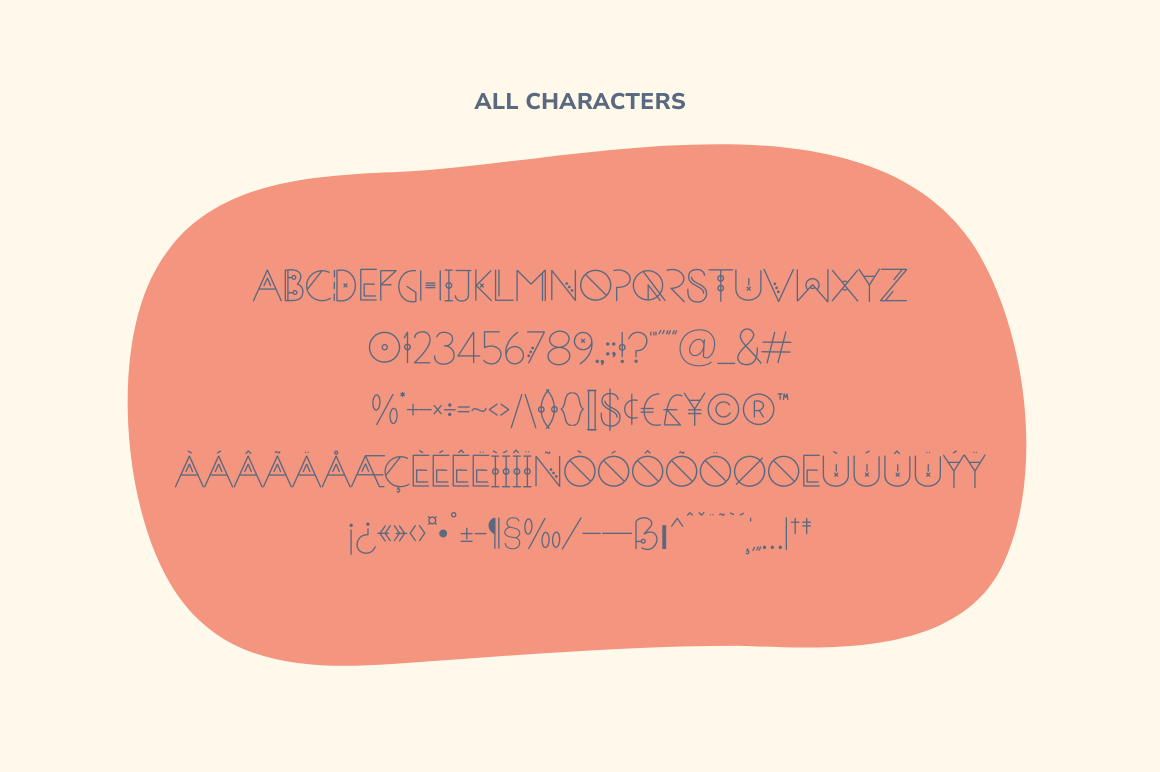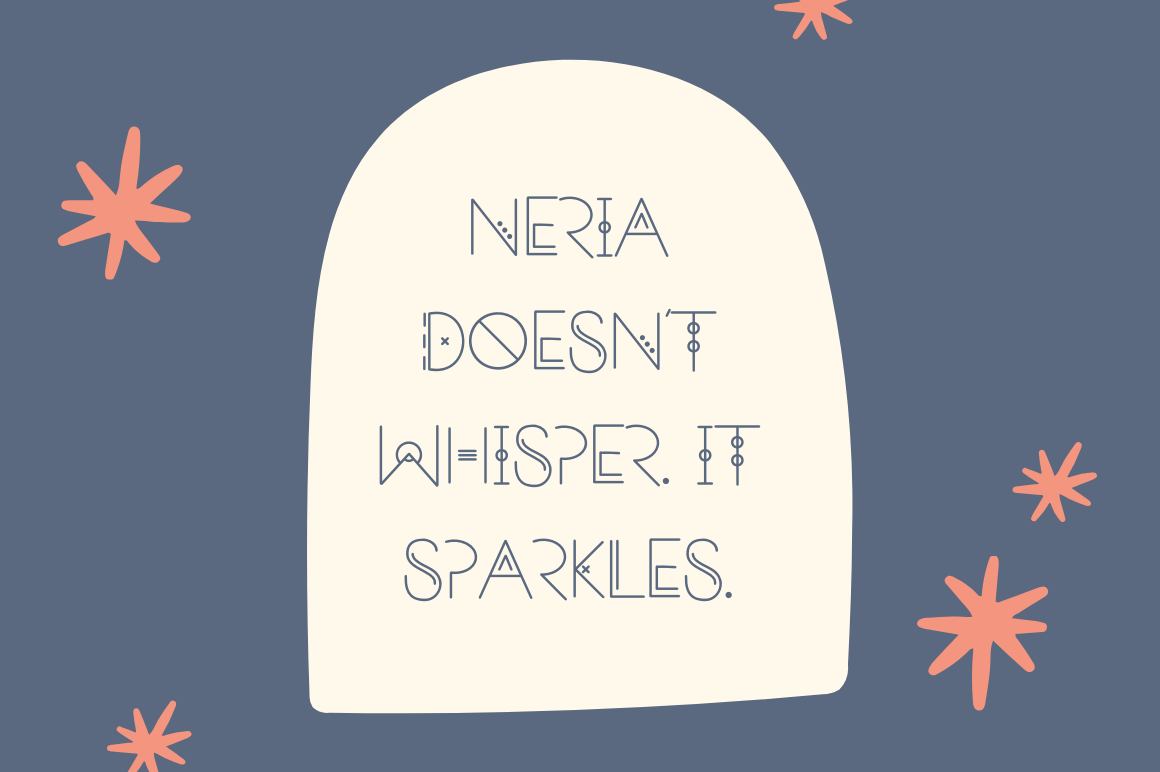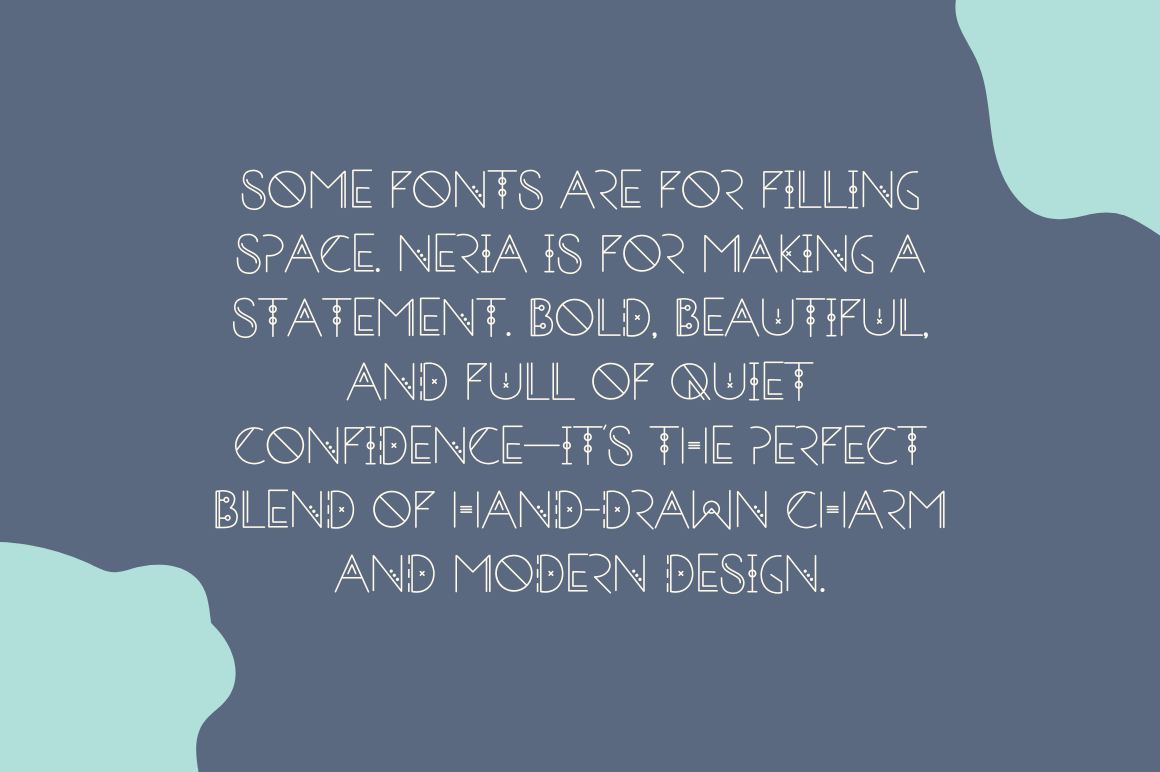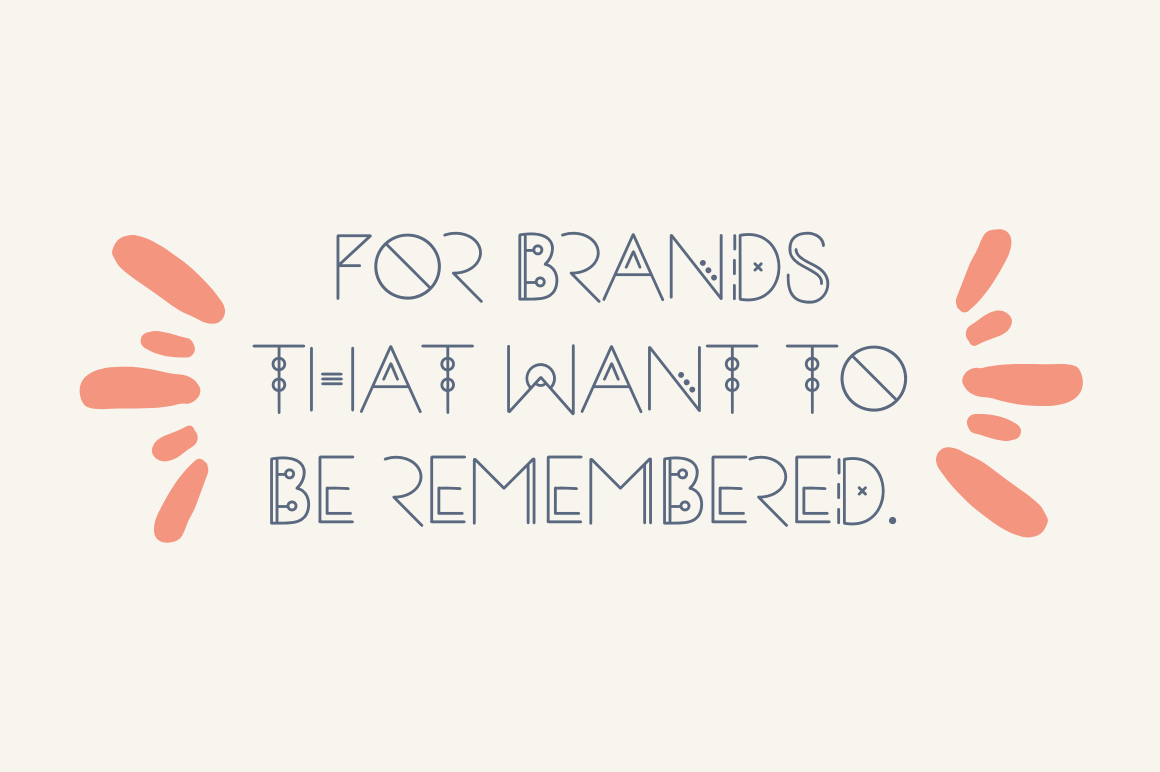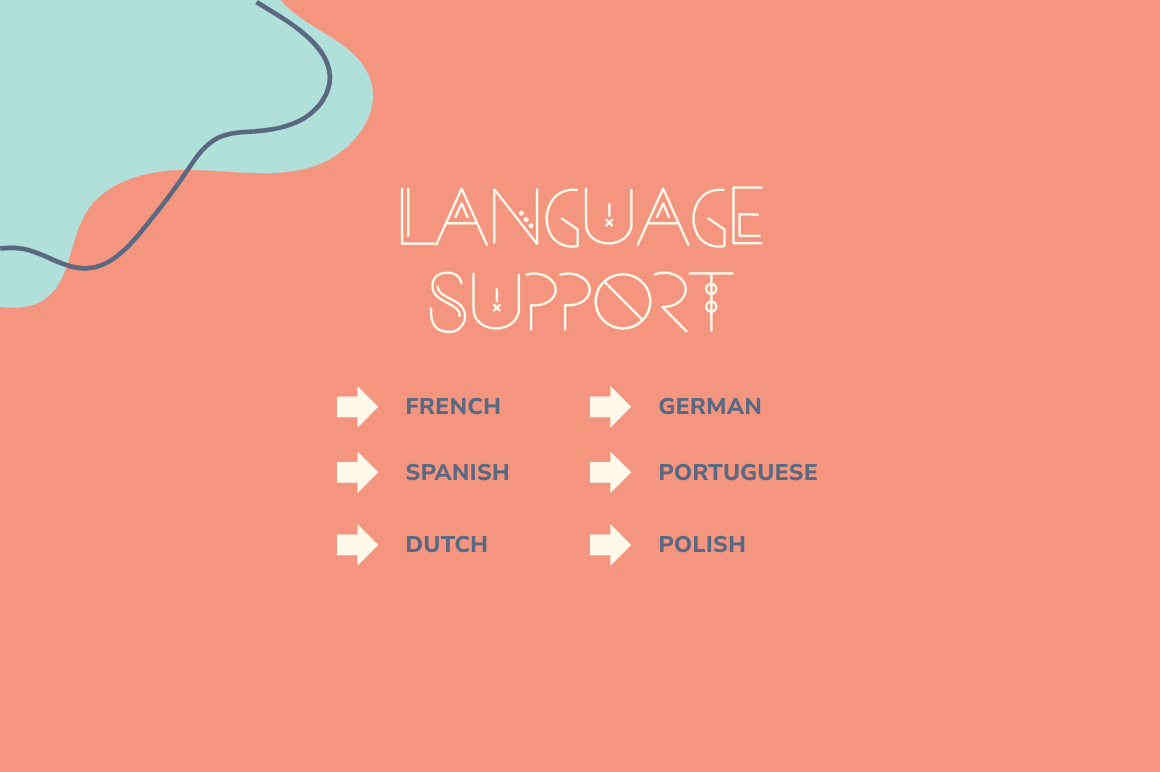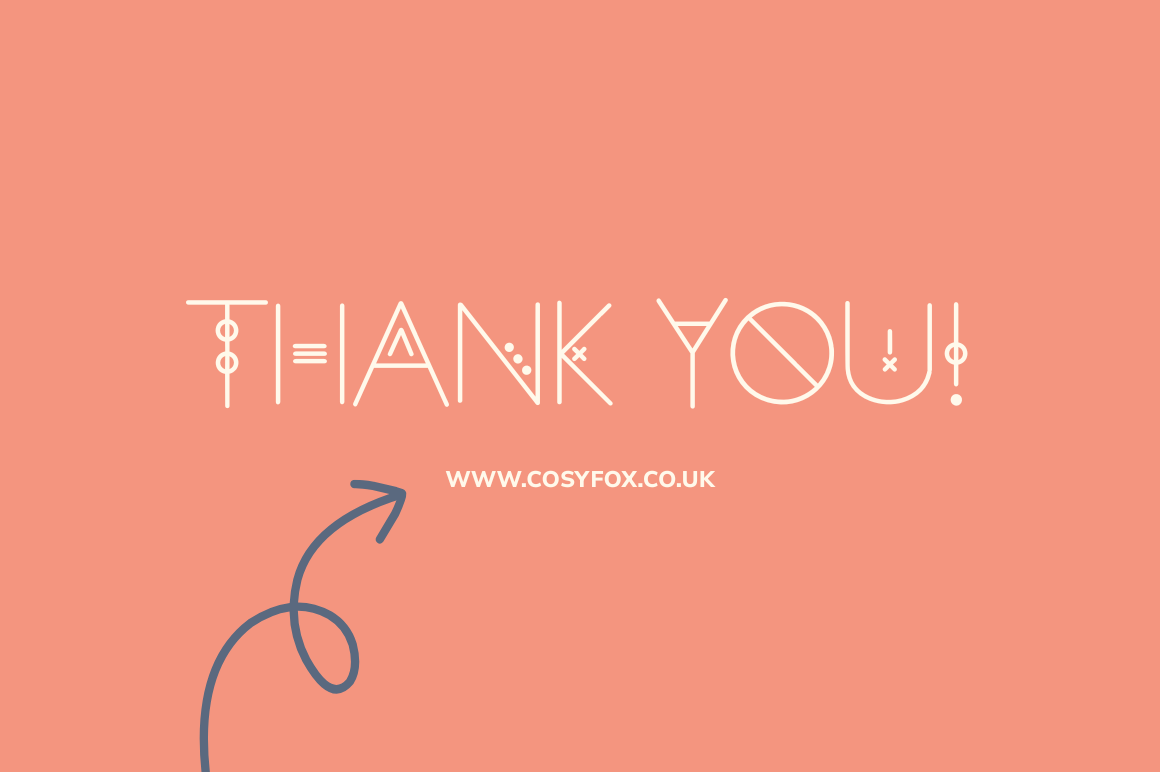
Neria | Ornate Display Font
Neria is a modern decorative font with striking shapes and hand-drawn soul. Inspired by geometric lines, elegant forms, and a love of detail, this display font was designed to catch the eye and elevate your designs. Whether you're building a brand, crafting packaging, or designing bold editorial spreads, Neria adds a touch of the extraordinary. All-caps, sharp yet graceful, and full of unique character, it works beautifully in Canva, Procreate, and all your favourite design tools. Language Support: French, German, Spanish, Italian and Portuguese. What You Get: Neria .OTF font file, How to Install PDF. Thank You! www.cosyfox.co.uk